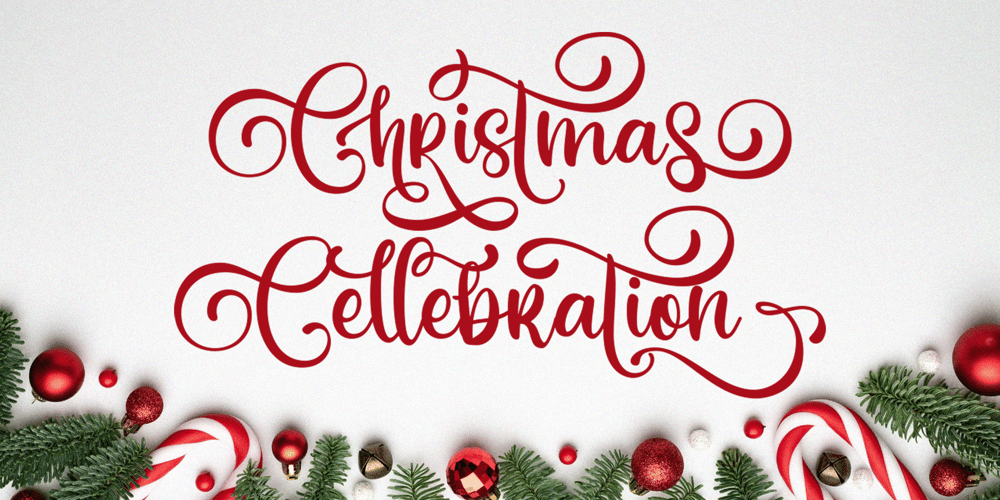
Chorister Handwriting Script Font Family was designed by Virgiawan Listanto and published by Inviline. Chorister Handwriting Script contains 1 styles and family package options. Introducing Chorister, a cozy Christmas handwriting script that adds festive charm to your designs. Perfect for holiday cards, invitations, and seasonal branding projects!